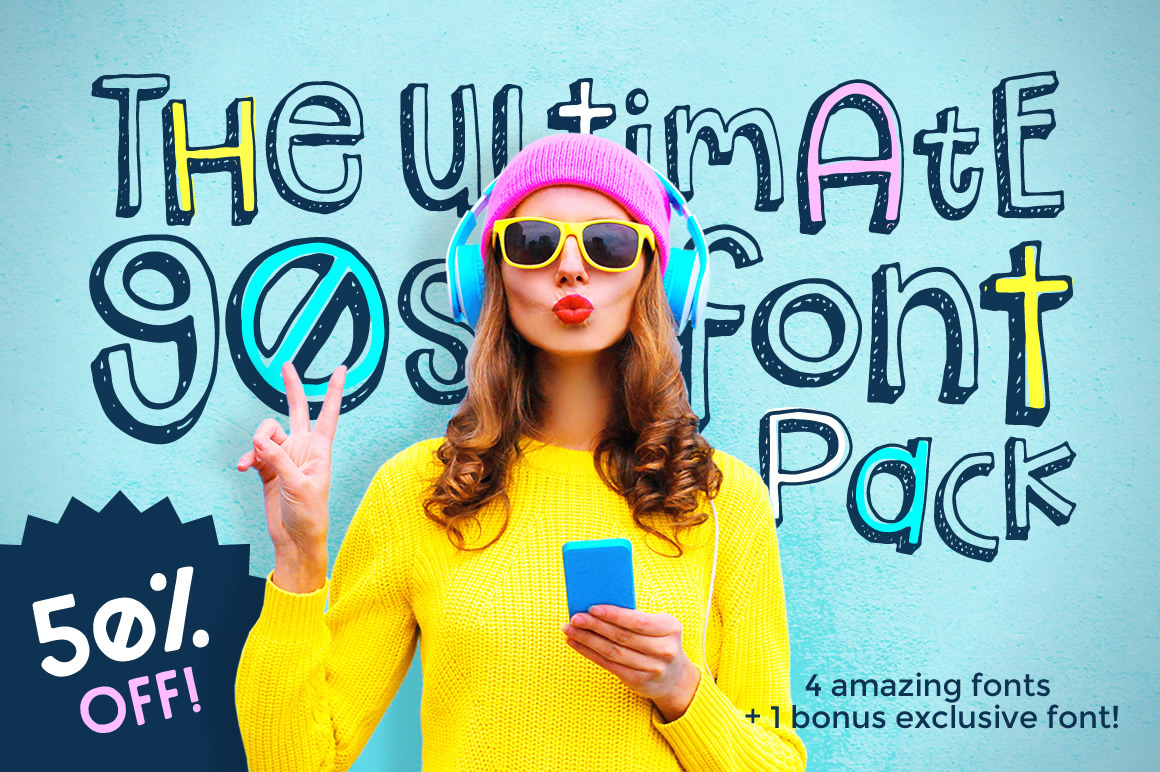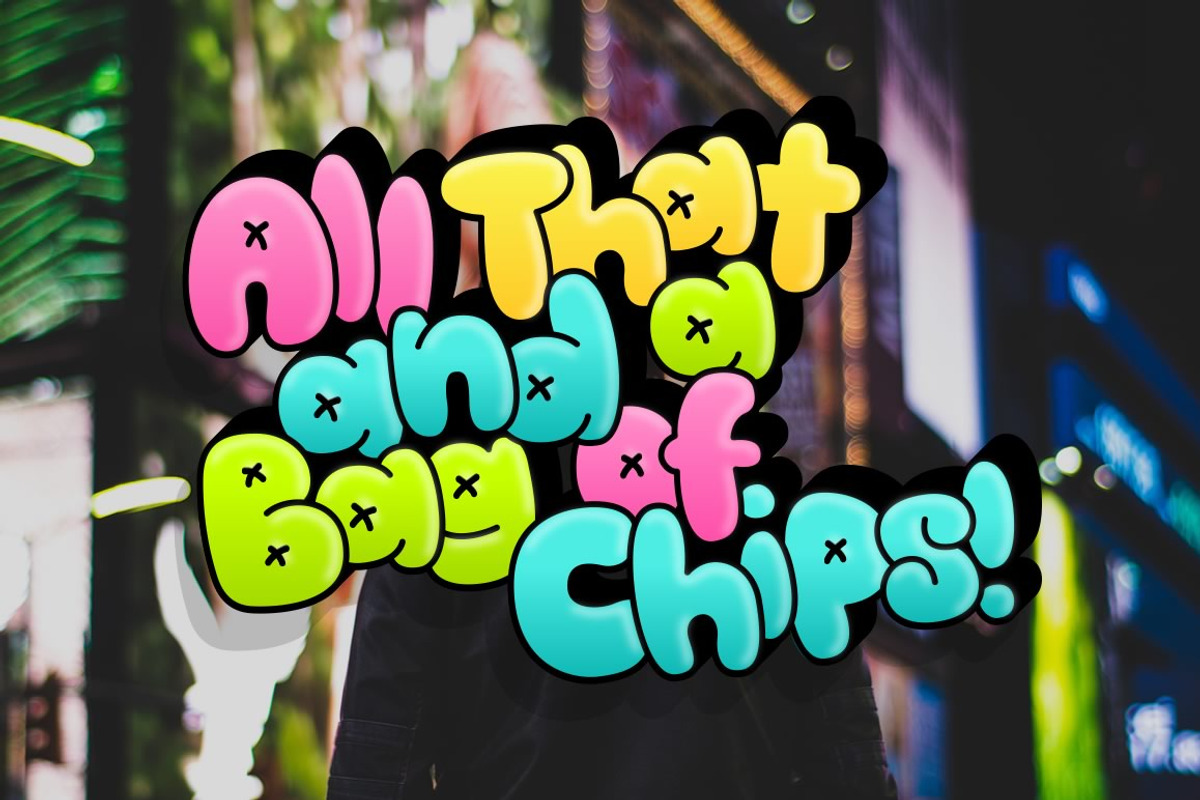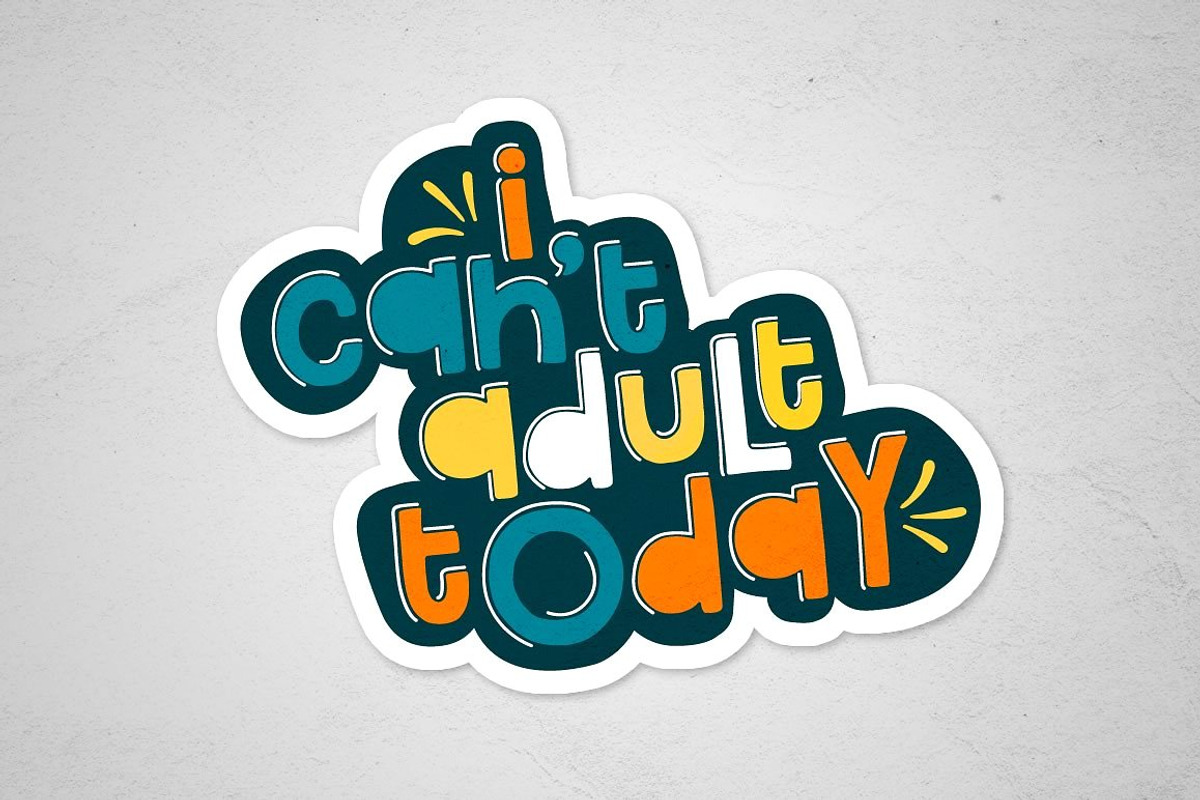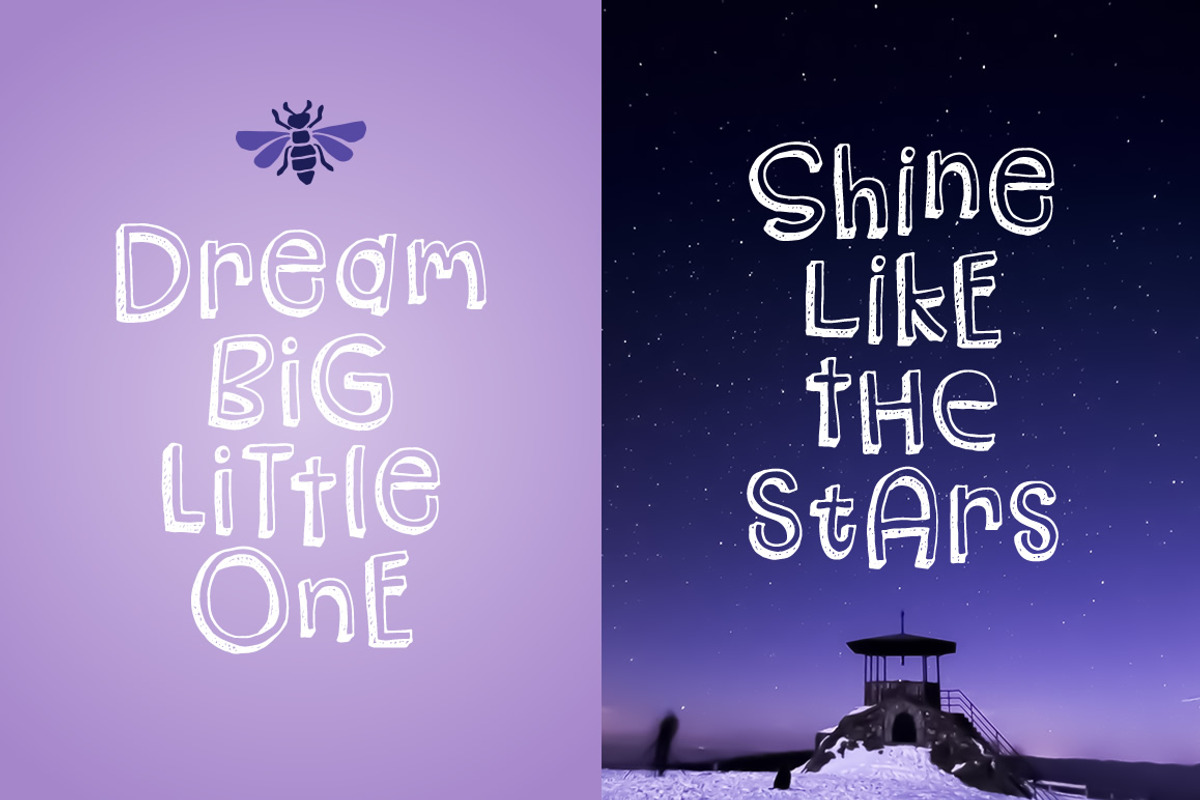
The Ultimate 90s Font Pack
Oh Snap! The Ultimate 90s Font Pack is here! Four fonts oozing with that casual fun style that defined the decade, bundled together and 50% off! As a bonus, an exclusive bubbly font has been thrown in just for kicks. It doesn't get any more fun than this!